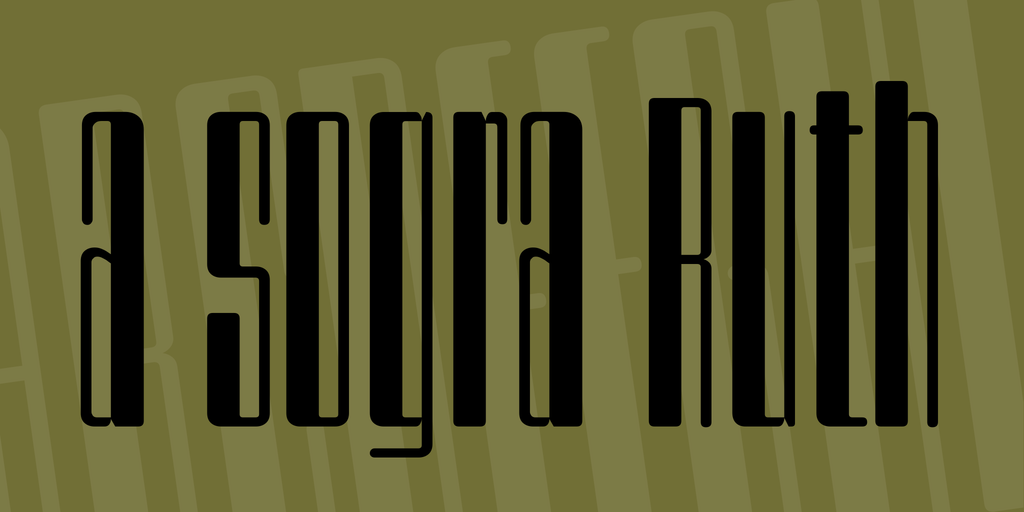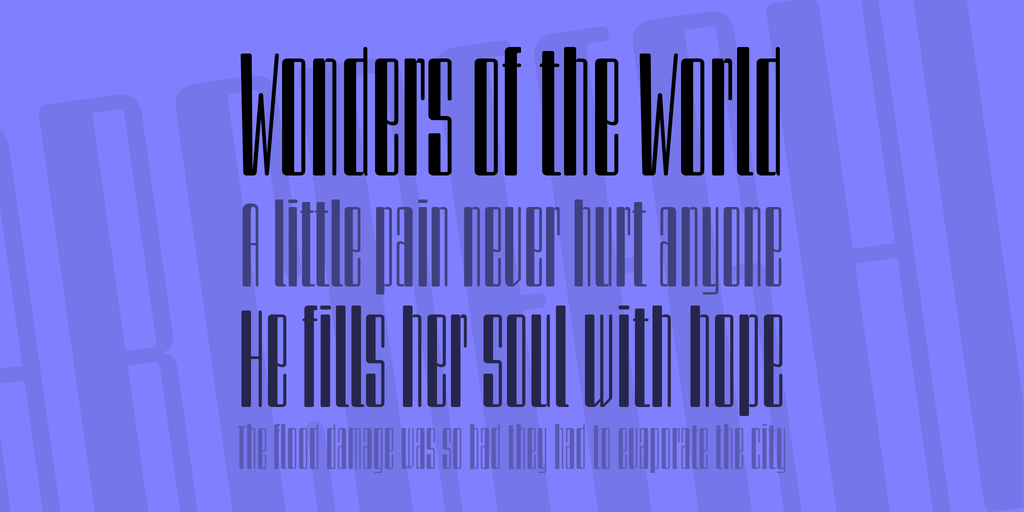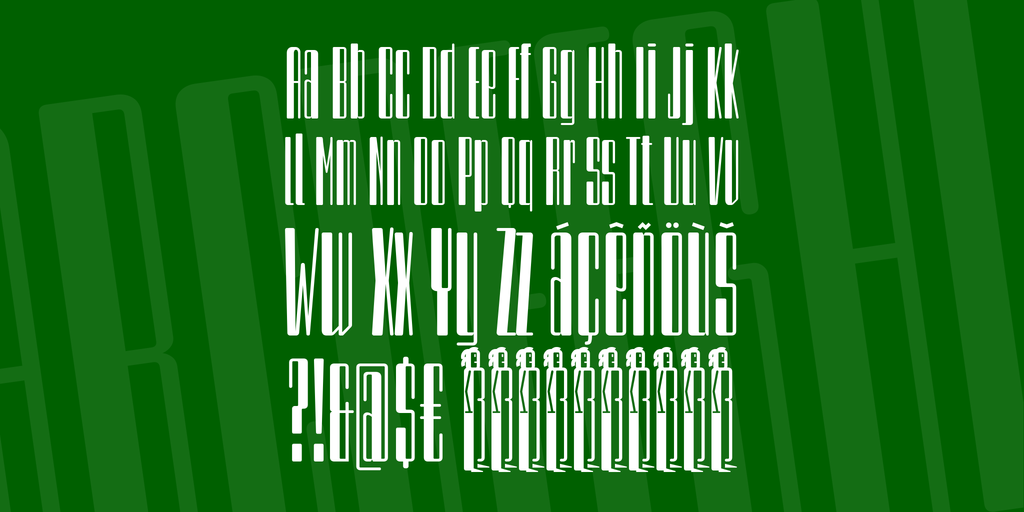
a sogra Ruth Font
a sogra Ruth Font Made by Fernando Haro
This modernist typography is dedicated to my mother in law Ruth who left a sad day August 2015. This font is for PERSONAL USE ONLY and requires a license for commercial use.